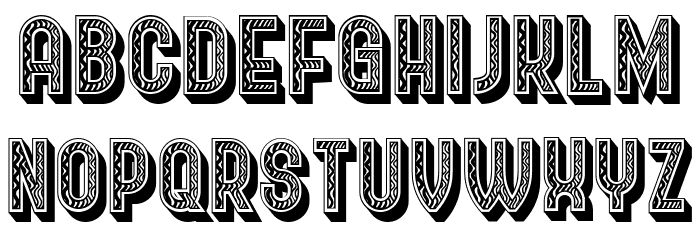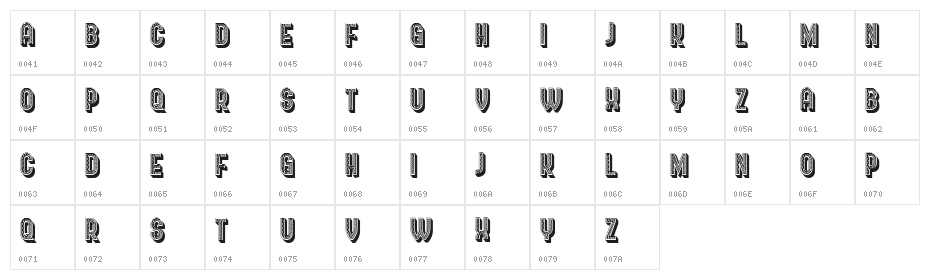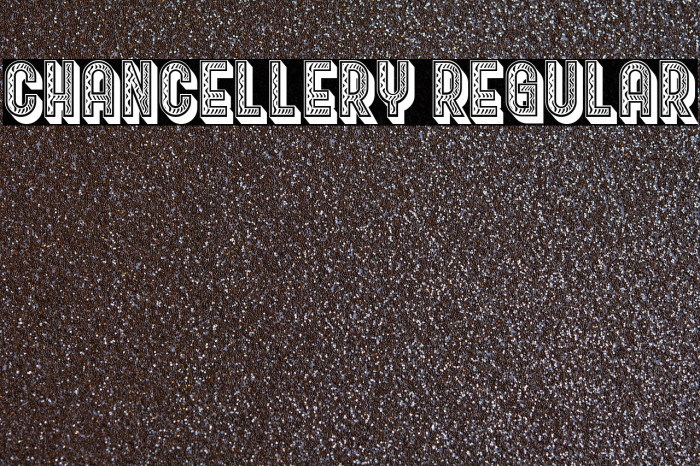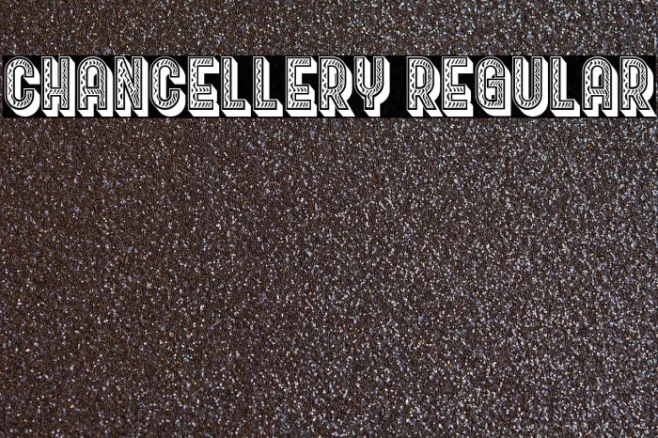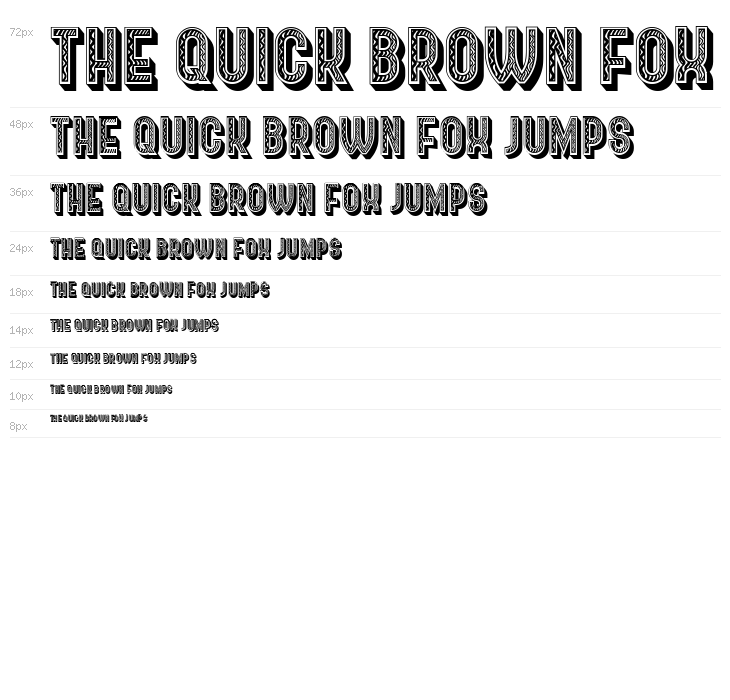
Chancellery Regular Font
Chancellery Regular Description
This font features a bold, decorative style with a three-dimensional effect. The letters are outlined with a thick black shadow, giving them a striking appearance. The interior of each character is filled with intricate patterns, adding a layer of complexity and visual interest. The uppercase letters are uniform in height, and the overall design is reminiscent of vintage signage or circus posters. This font is designed to capture attention and make a bold statement, making it ideal for creative and artistic projects.
| Proposed Projects | Ideal for posters, signage, branding, and any project requiring a bold, eye-catching typeface. |